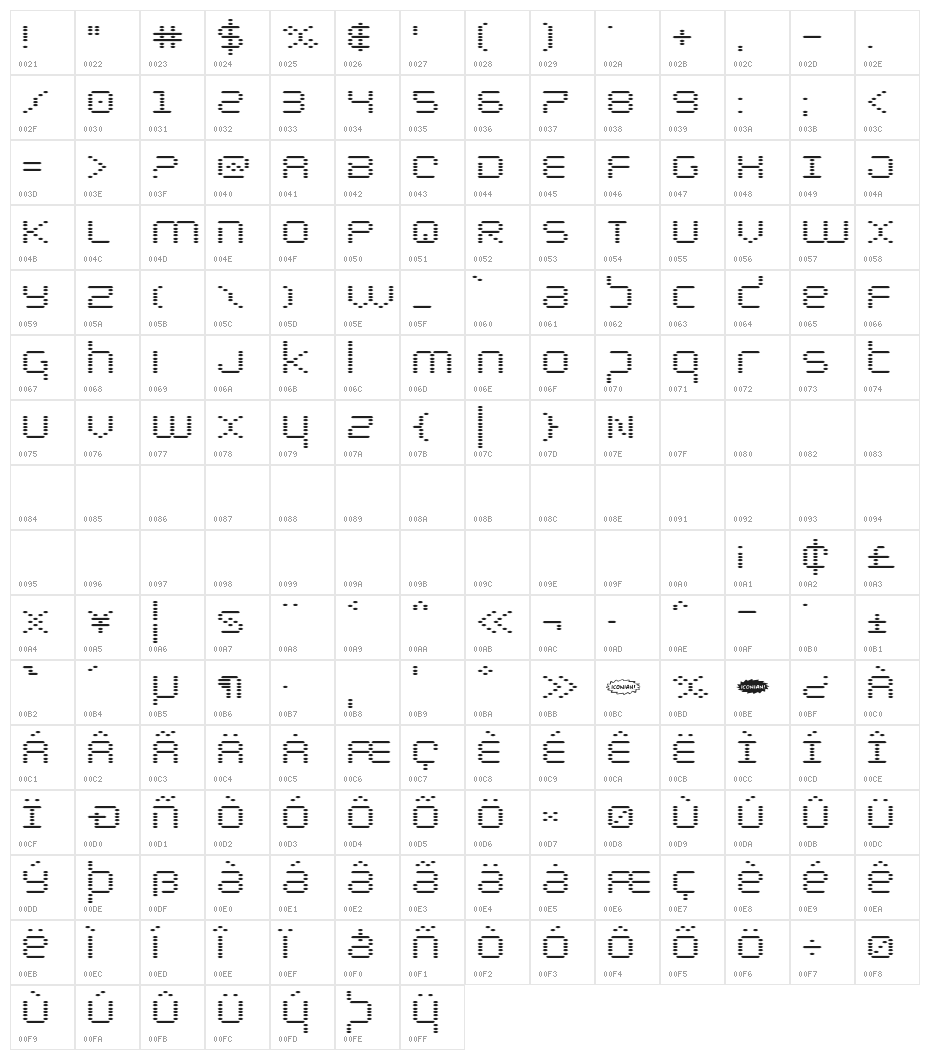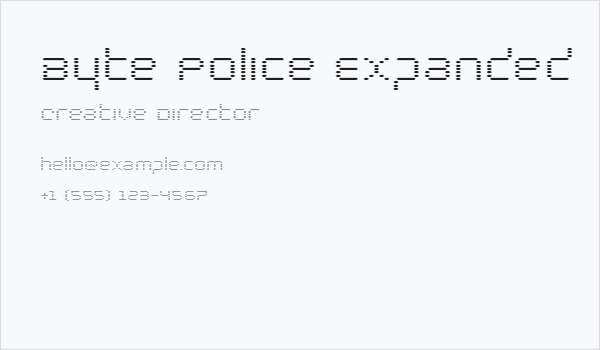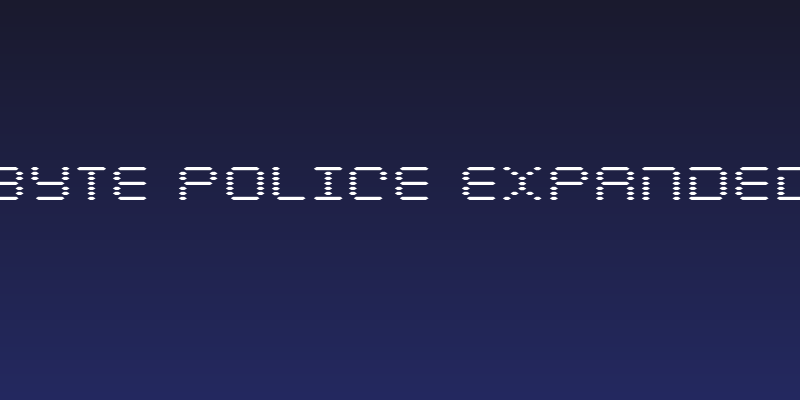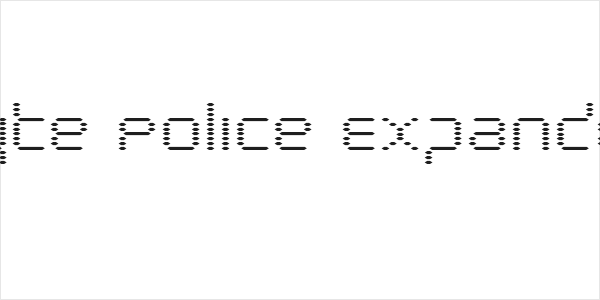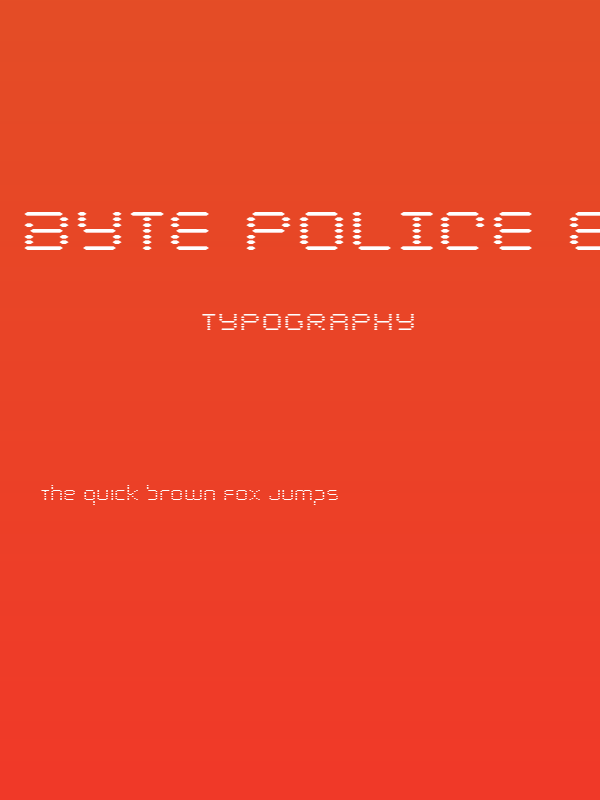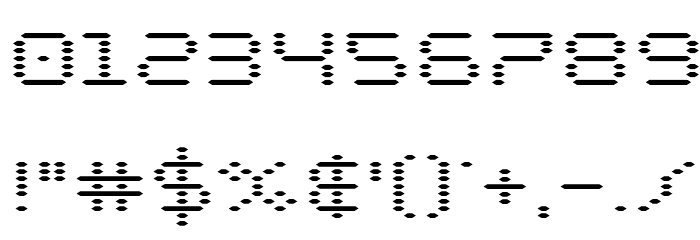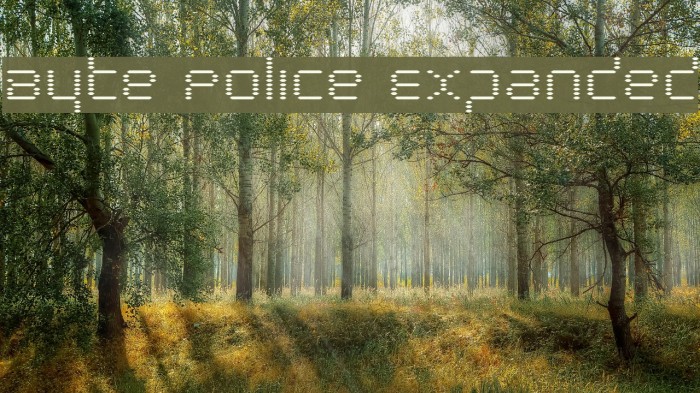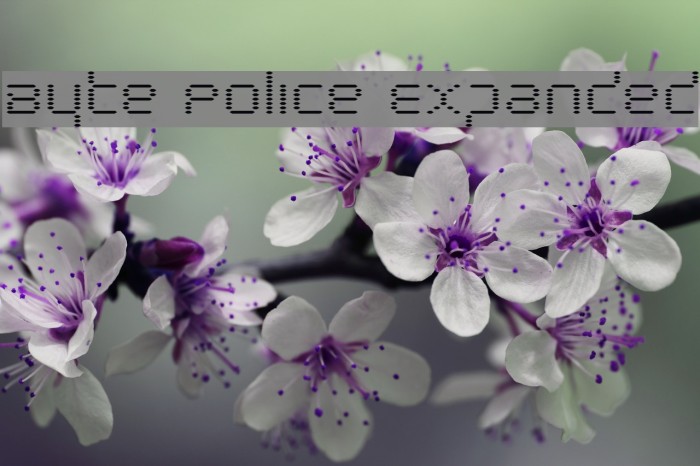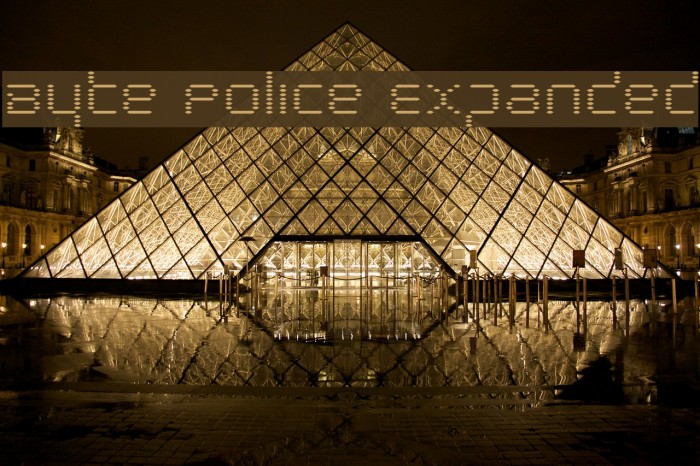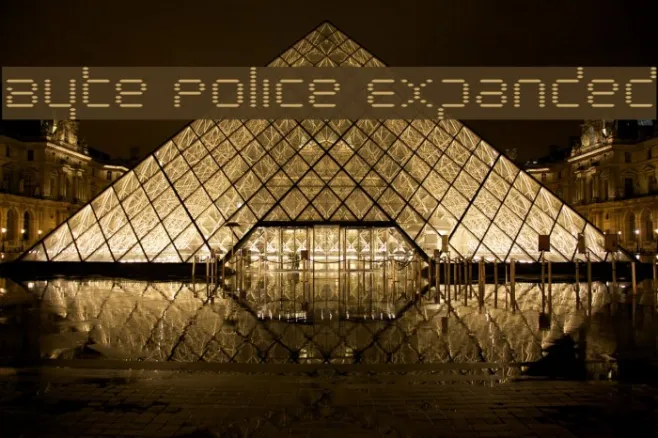
Byte Police Expanded Font
Byte Police Expanded Description
This font features a unique dot matrix style, reminiscent of retro digital displays. Each character is composed of a grid of dots, creating a pixelated effect that evokes a sense of nostalgia for early computing and digital technology. The design is clean and geometric, with consistent spacing and alignment across all characters. This font is particularly effective in conveying a tech-savvy or futuristic aesthetic, making it ideal for projects that aim to capture the essence of digital innovation or retro computing. The uniformity and simplicity of the dot-based design ensure readability while maintaining a distinct visual appeal.
| Use Case | Headlines, Logos, Digital Displays |
| Proposed Projects | Ideal for tech-themed designs, retro digital displays, video game graphics, and futuristic branding. |